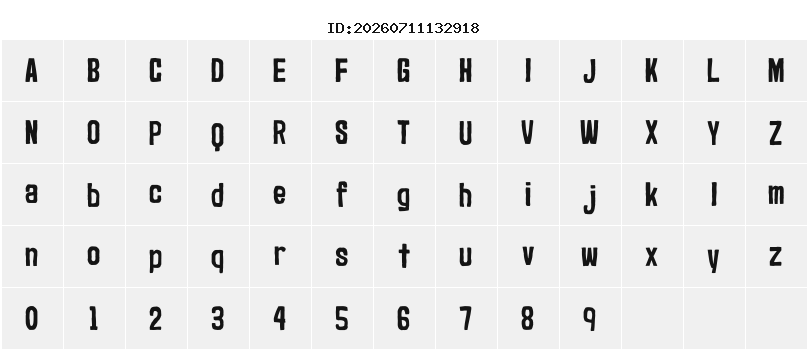
Marker2 Preview
About Marker2.ttf
Marker2.ttf is a modern, elegant sans-serif font designed for ultimate readability and visual harmony. Perfect for branding, headlines, web design, and print materials.